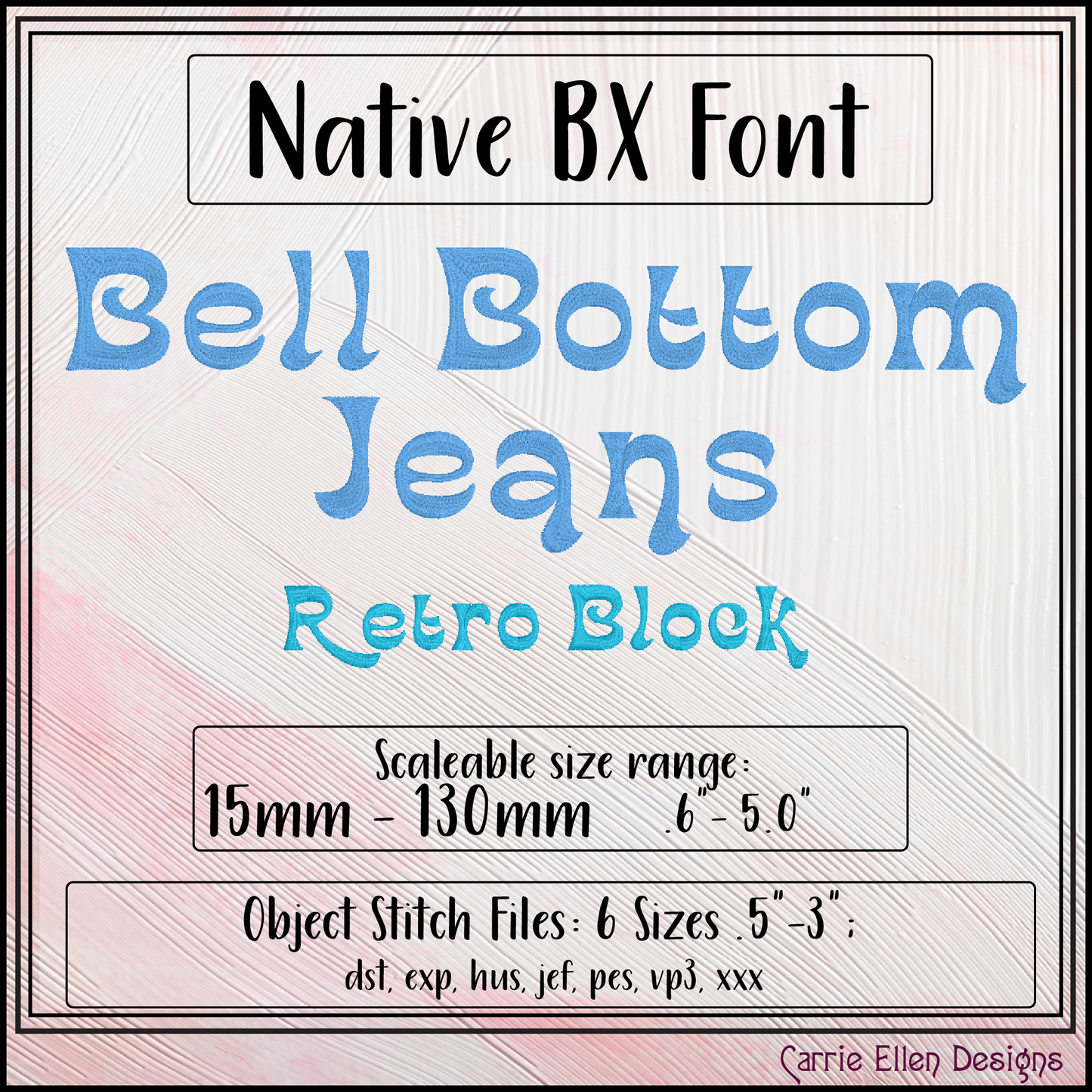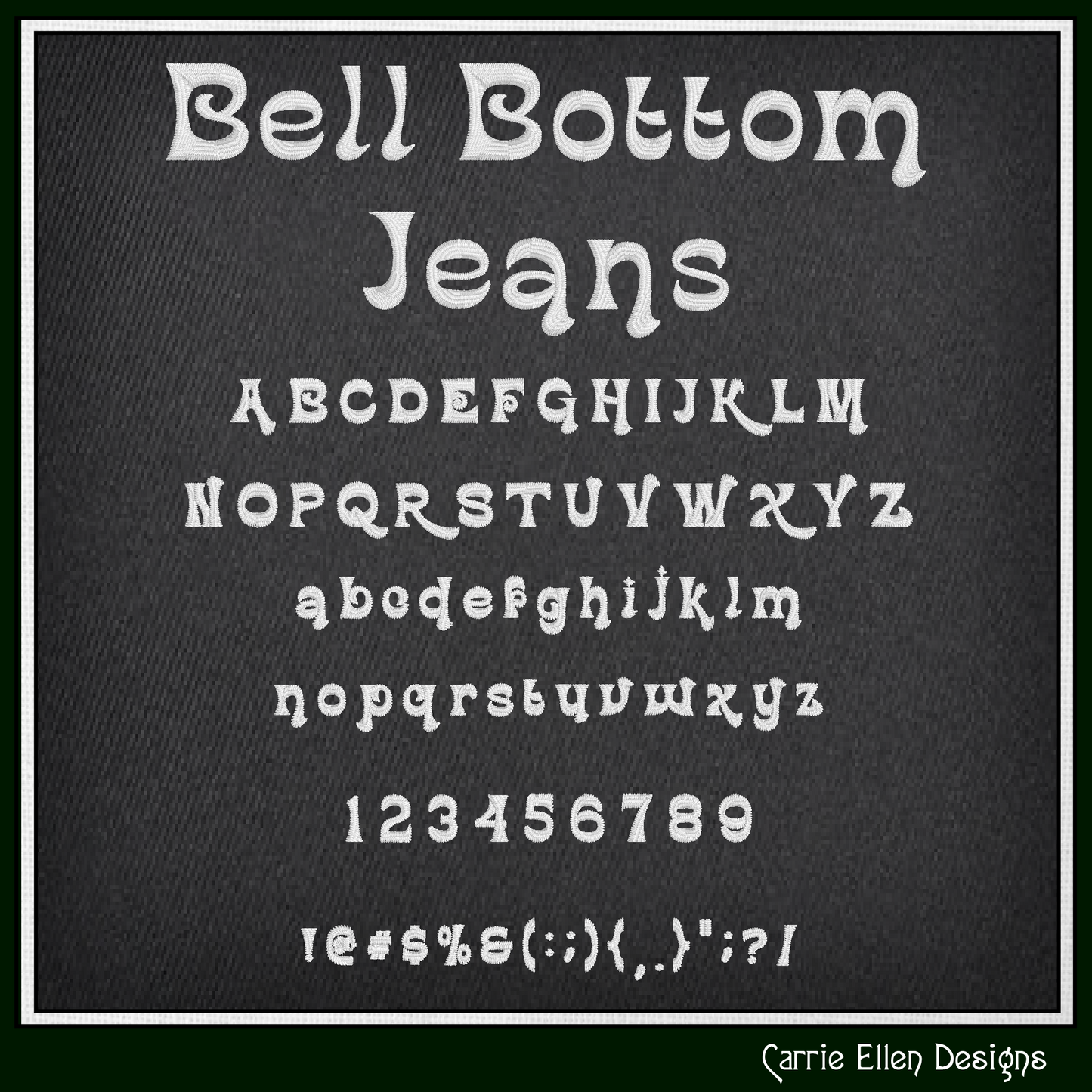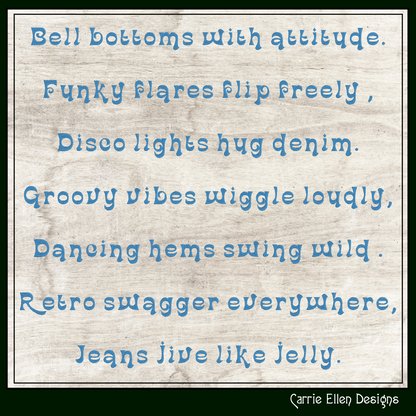
Bell Bottom Jeans BX Fonts and Lettering Stitch Files, Retro Boho Block Alphabet Machine Embroidery (3764)
Add beautiful text and creative flair to your embroidery projects with our BX Fonts and Lettering Stitch Files collection! Each font is carefully digitized to ensure smooth, professional stitching and balanced density, making it easy to personalize anything from gifts and apparel to home décor and accessories.